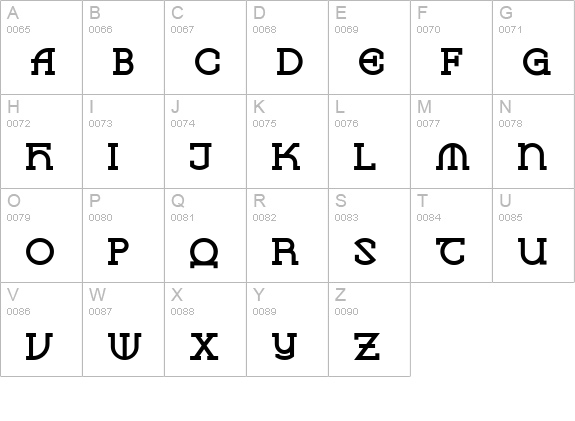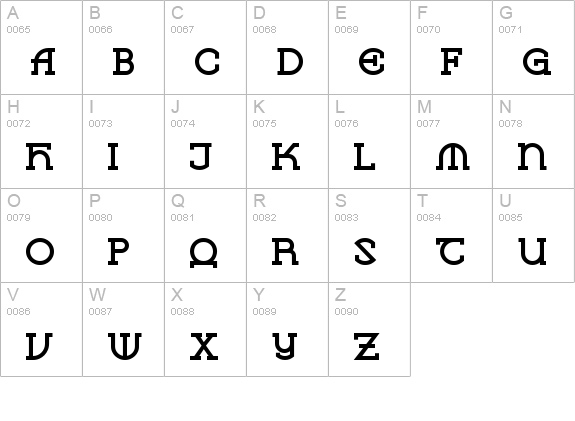
Vlaanderen Square NF font is a modern and stylish typeface that exudes elegance and sophistication. With its clean lines and sharp edges, this font is perfect for creating eye-catching designs that demand attention. The geometric shapes and bold strokes of Vlaanderen Square NF font make it ideal for use in logos, headlines, posters, and other creative projects. What sets Vlaanderen Square NF font apart is that it is available for free download at FontsMarket.com. This means that you can access this stunning font without any cost, making it a valuable addition to your font collection. Whether you are a designer looking to enhance your projects or a creative individual looking for a unique typeface, Vlaanderen Square NF font is sure to impress with its modern and versatile style. Download it now and elevate your designs to the next level!